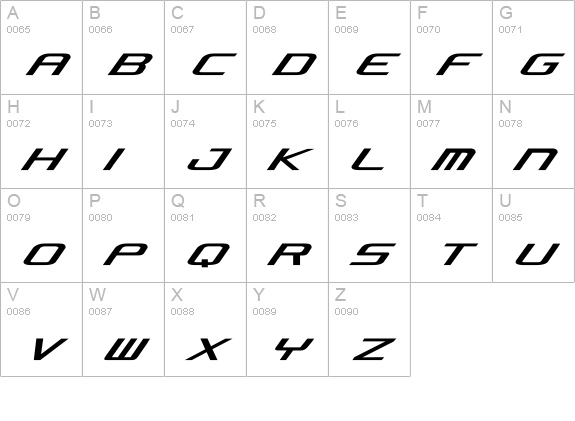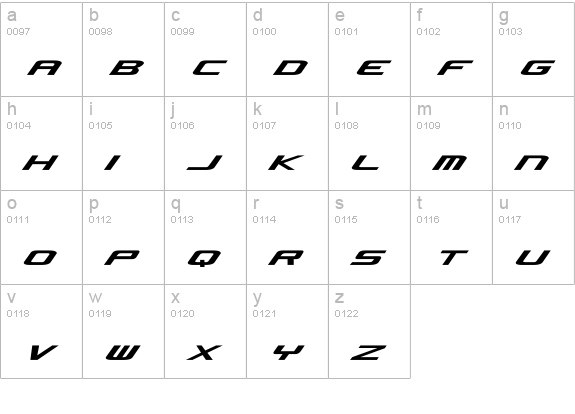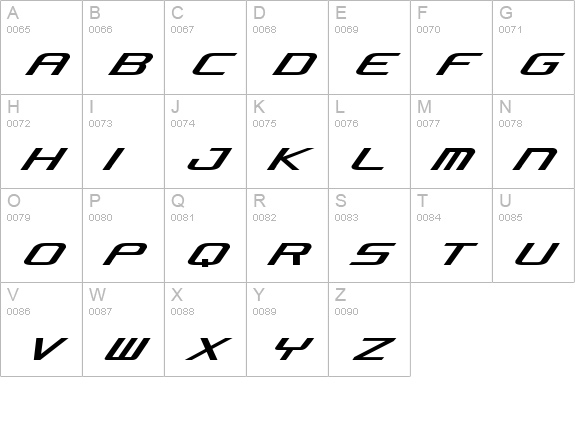
Concielian Jet font is a stylish and versatile typeface that exudes a sense of modernity and sophistication. With its sleek lines and sharp angles, this font is perfect for creating eye-catching designs that demand attention. Whether you're working on a branding project, a poster design, or a website layout, Concielian Jet will add a touch of elegance to your work. The best part is that Concielian Jet font is completely free to download! You can easily access this fantastic font at FontsMarket.com and start using it in your projects right away. Don't miss out on the opportunity to enhance your designs with the sleek and contemporary look of Concielian Jet font. Download it now and take your creations to the next level!